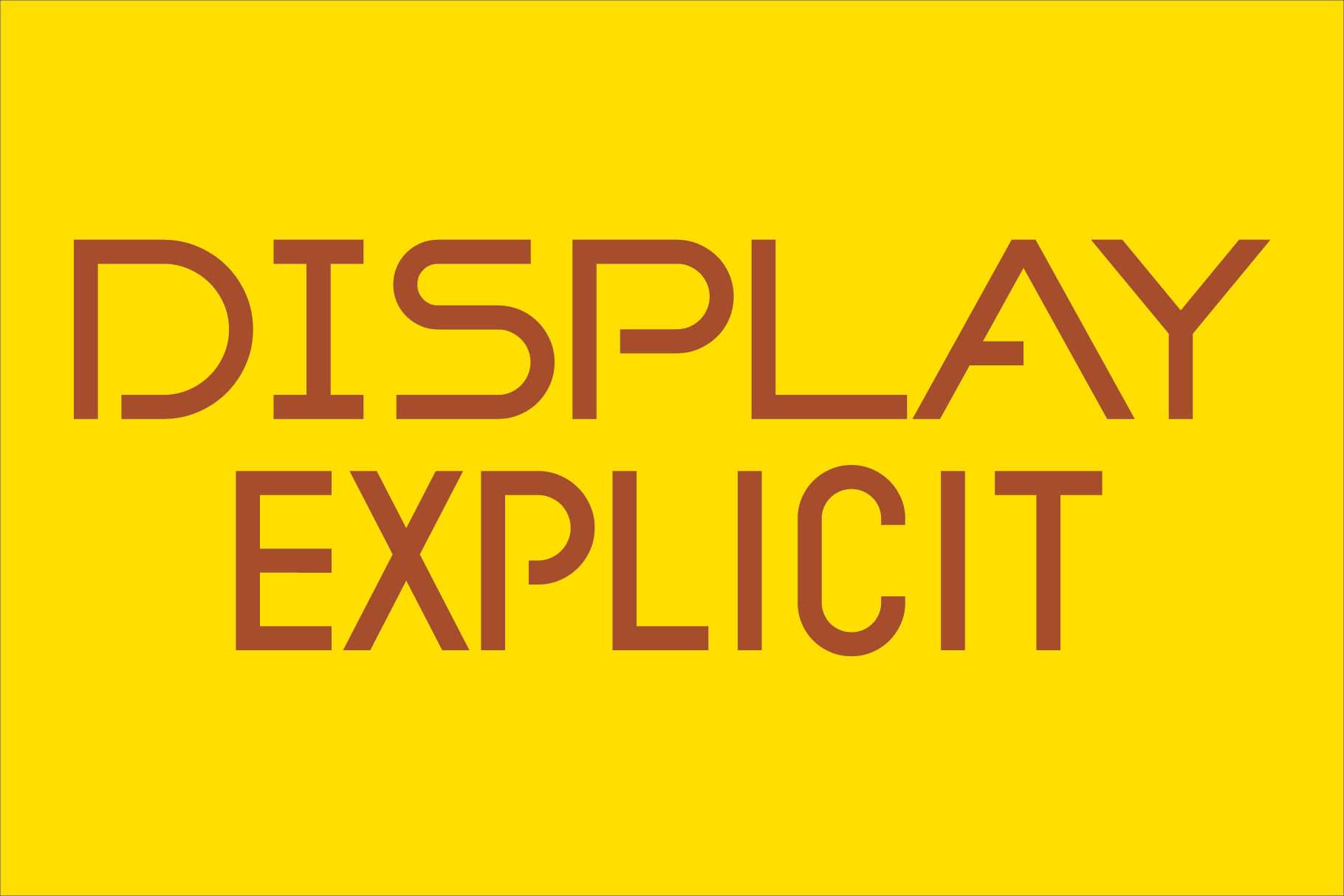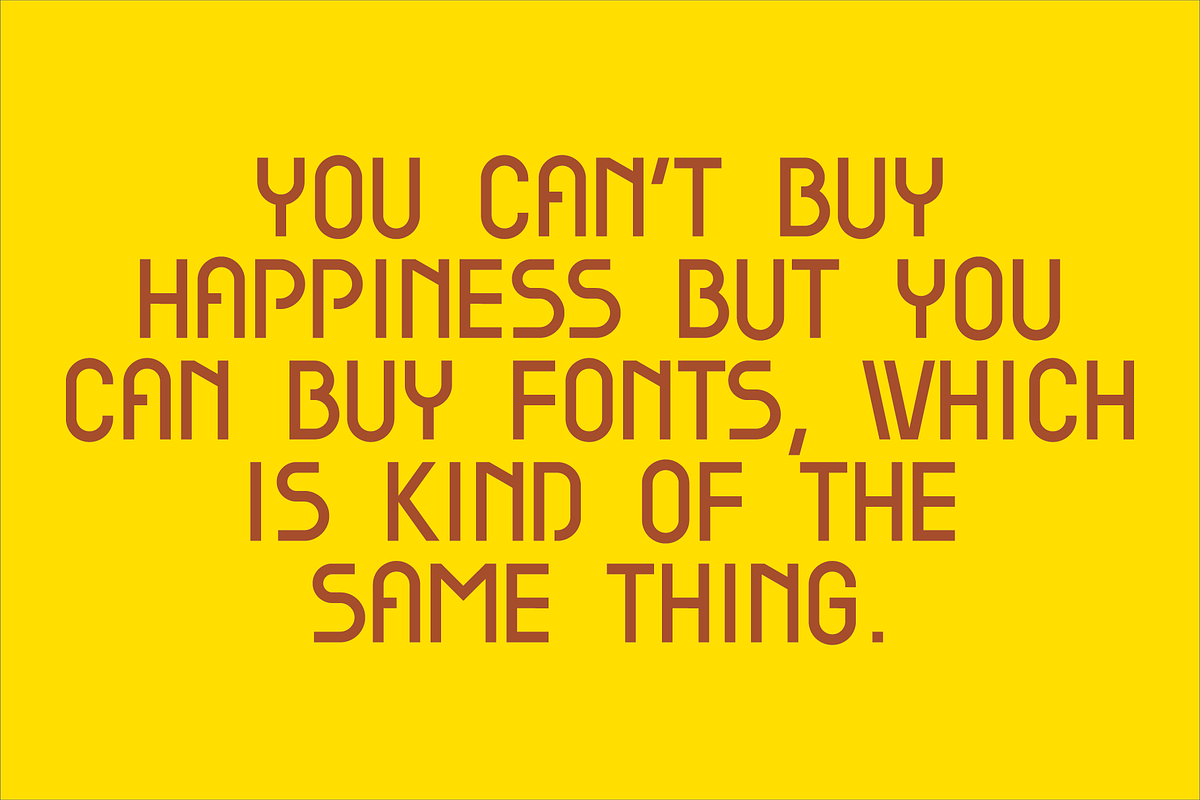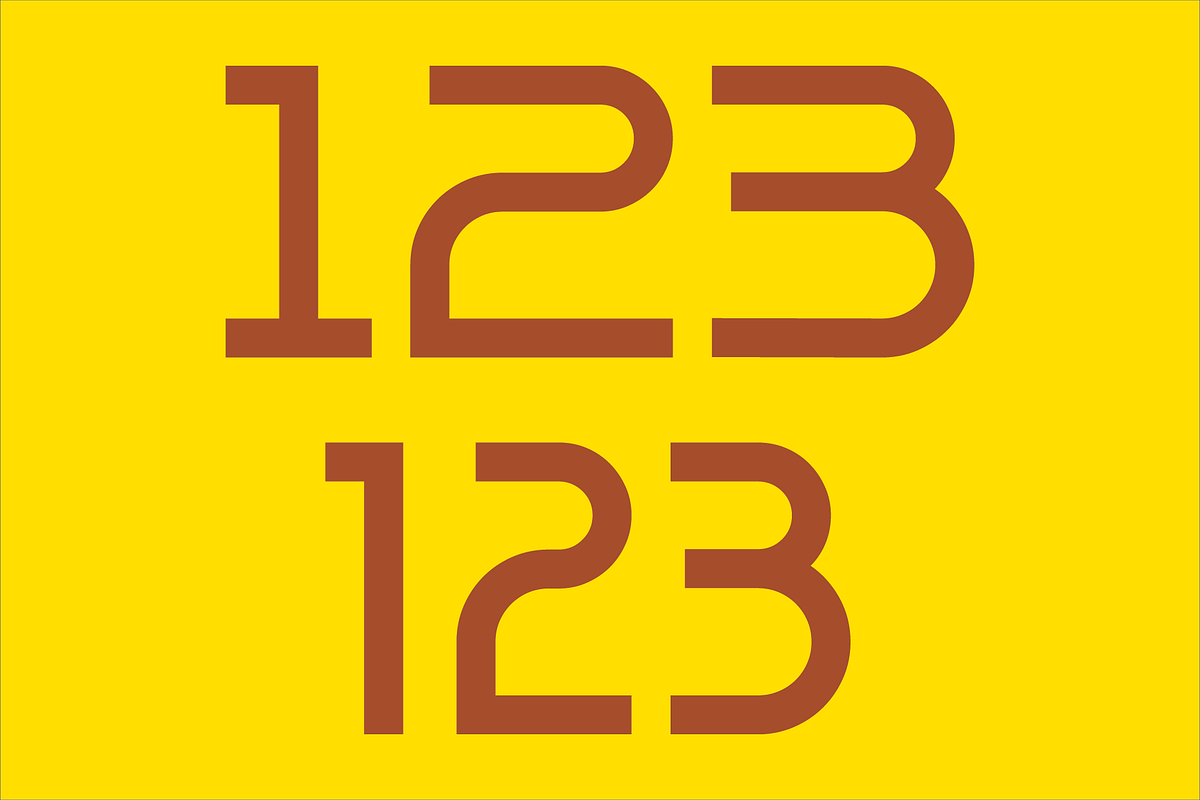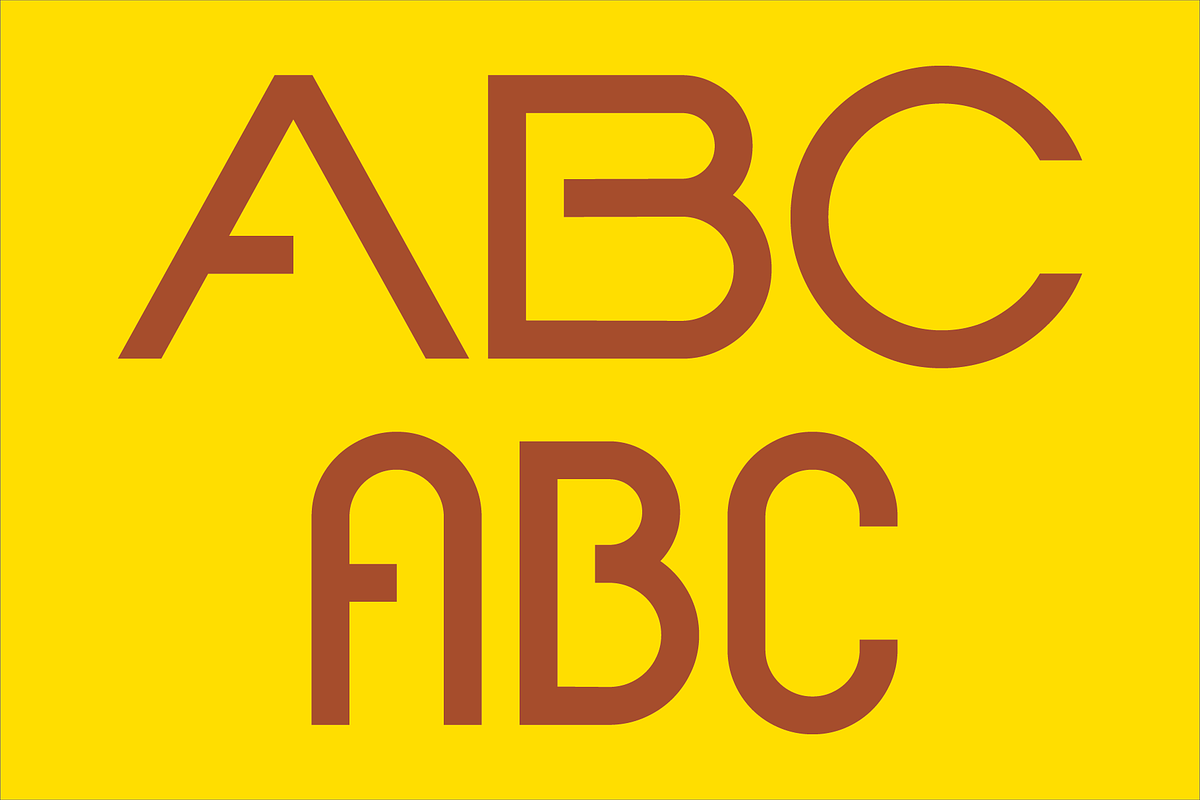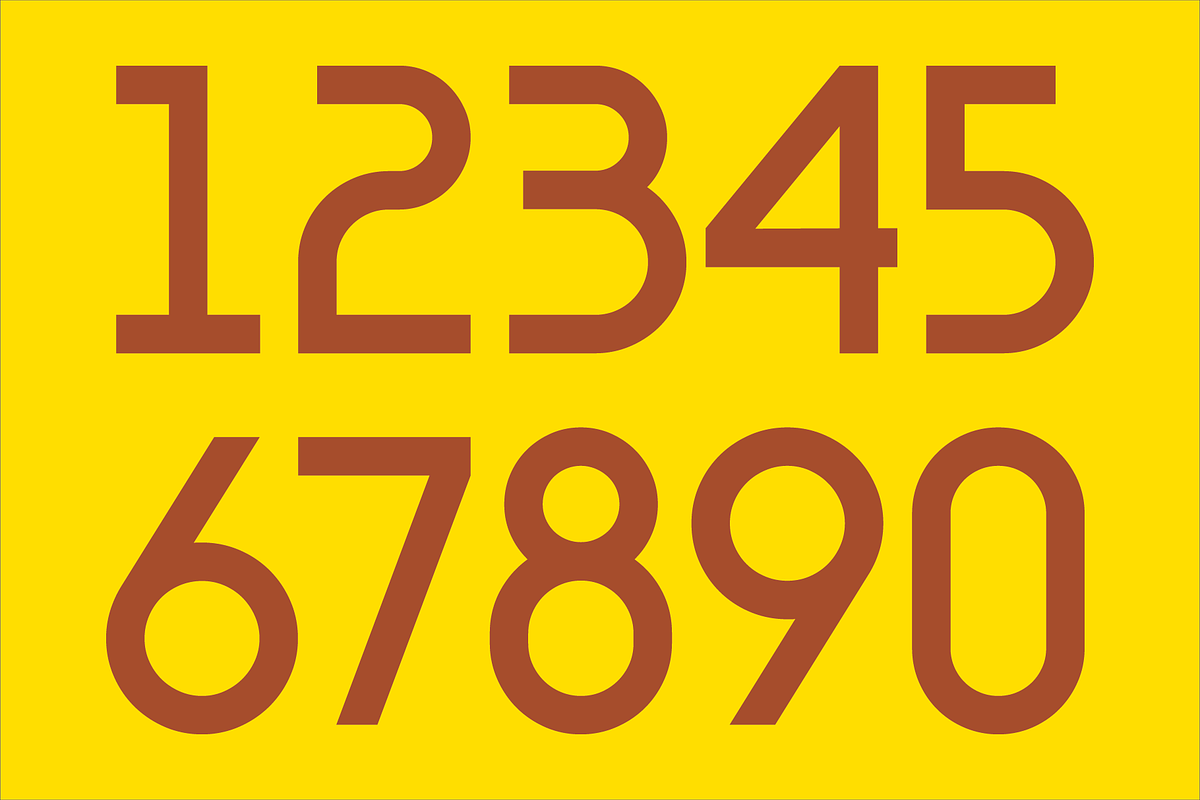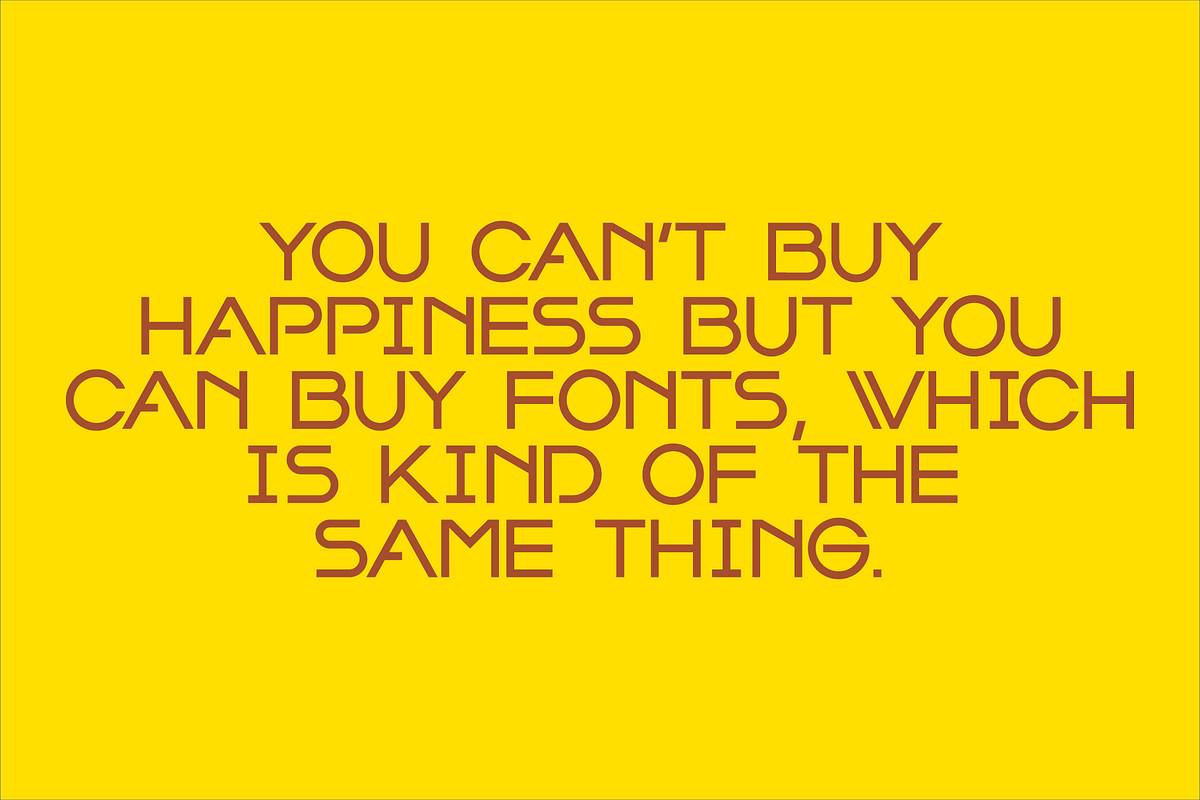
Display Explicit Font
Display Explicit is a display font not intended for text use. It was designed specifically for display, headline, logotype, branding, and similar applications. It has an uppercase alphabet located under the shift+character set keys with alternate characters for A, B, C, D, E, F, G, J, K, M, N, P, Q, R, and W located under the option+character and shift+option+character set keys. Under the character set keys are condensed uppercase characters. There are sets of numbers, dollar, pound and euro signs, matching each of the uppercase sets, and basic punctuation.